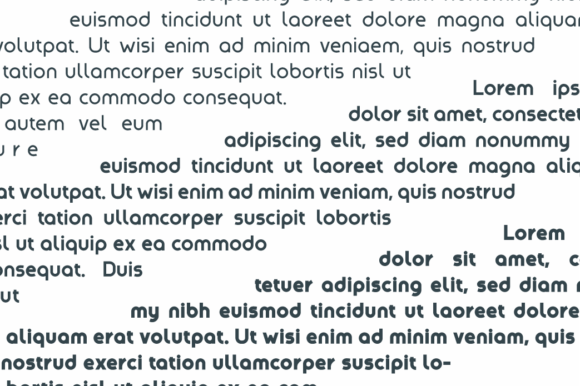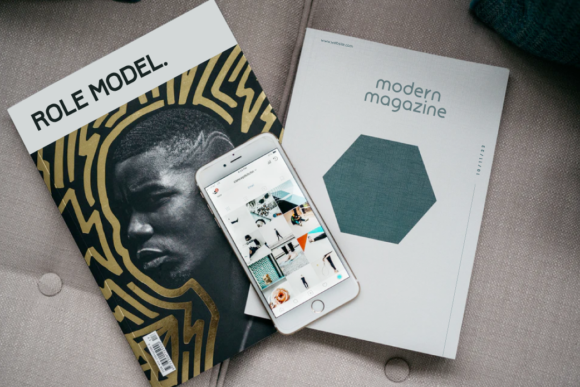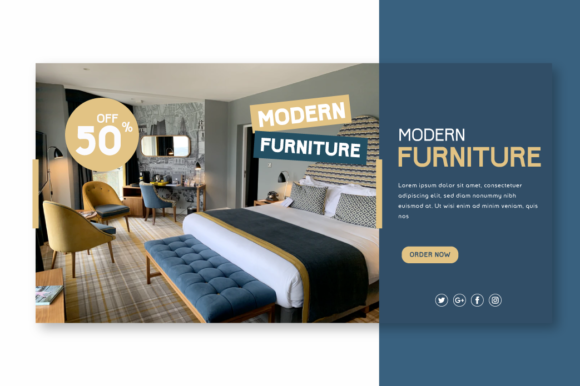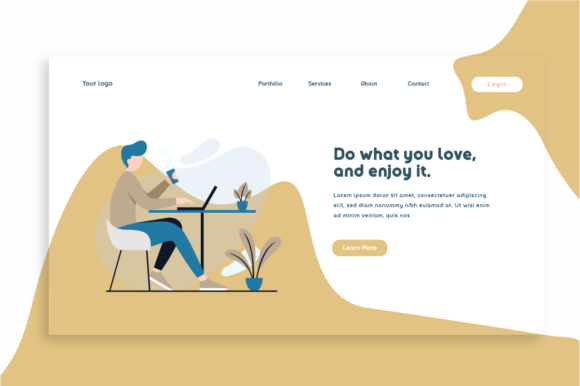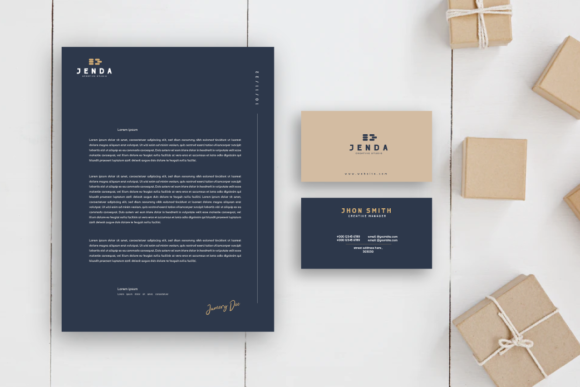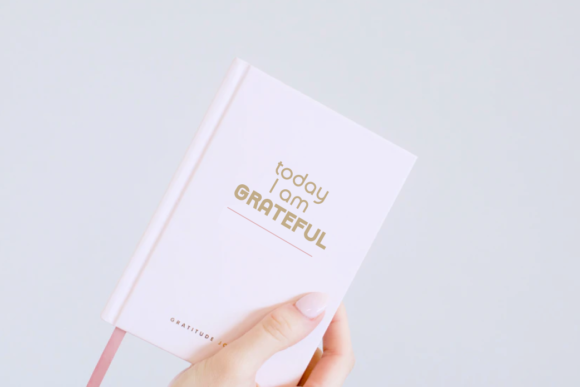
Amenable Font: The Perfect Choice for Creative Projects
In the world of typography, fonts play a crucial role in conveying the tone and personality of a brand or creative project. With the numerous font options available, it can be overwhelming to choose the right one. However, if you’re looking for a fresh and modern sans serif font that exudes playfulness, look no further than Amenable Font.
What is Amenable Font?
Amenable Font is a contemporary sans serif font designed to bring a touch of creativity and fun to your projects. Its clean and sleek lines make it perfect for a wide range of applications, from inspirational wall posters to branding and advertising materials. The font’s modern aesthetic and playful vibe make it an excellent choice for designers and crafters looking to add a unique touch to their work.
Key Features of Amenable Font
Amenable Font boasts several key features that make it an attractive option for creative projects:
- Modern sans serif design: The font’s sleek and minimalist design makes it perfect for projects that require a clean and contemporary look.
- Playful vibe: Amenable Font’s playful personality makes it ideal for projects that require a touch of whimsy and creativity.
- Versatile: The font is suitable for a wide range of applications, from print materials to digital projects.
- Easily readable: The font’s clear and concise design ensures that your message is conveyed effectively, making it perfect for body text and headings.
Use Cases for Amenable Font
Amenable Font is an excellent choice for a variety of creative projects, including:
- Inspirational wall posters: The font’s playful and motivational vibe makes it perfect for creating inspiring posters that grab attention.
- Branding and advertising: Amenable Font’s modern aesthetic and versatility make it an excellent choice for branding and advertising materials, such as logos, brochures, and flyers.
- Digital projects: The font is suitable for digital projects, such as website headers, social media graphics, and email newsletters.
- Crafting and DIY projects: Amenable Font’s playful personality makes it perfect for crafting and DIY projects, such as handmade cards, scrapbooking, and paper crafting.
Tips for Using Amenable Font
To get the most out of Amenable Font, here are some tips to keep in mind:
- Experiment with font sizes: Amenable Font looks great in various font sizes, from large headings to smaller body text.
- Pair with complementary fonts: Combine Amenable Font with complementary fonts to create visual interest and add depth to your project.
- Play with colors: The font’s modern aesthetic looks great in a variety of colors, so don’t be afraid to experiment and find the perfect hue for your project.
Amenable Font is a fresh and modern sans serif font that’s perfect for creative projects that require a touch of playfulness and whimsy. Its versatility, readability, and modern aesthetic make it an excellent choice for designers and crafters looking to add a unique touch to their work. Whether you’re creating inspirational wall posters, branding materials, or digital projects, Amenable Font is sure to make your project stand out.
Get Creative with Amenable Font